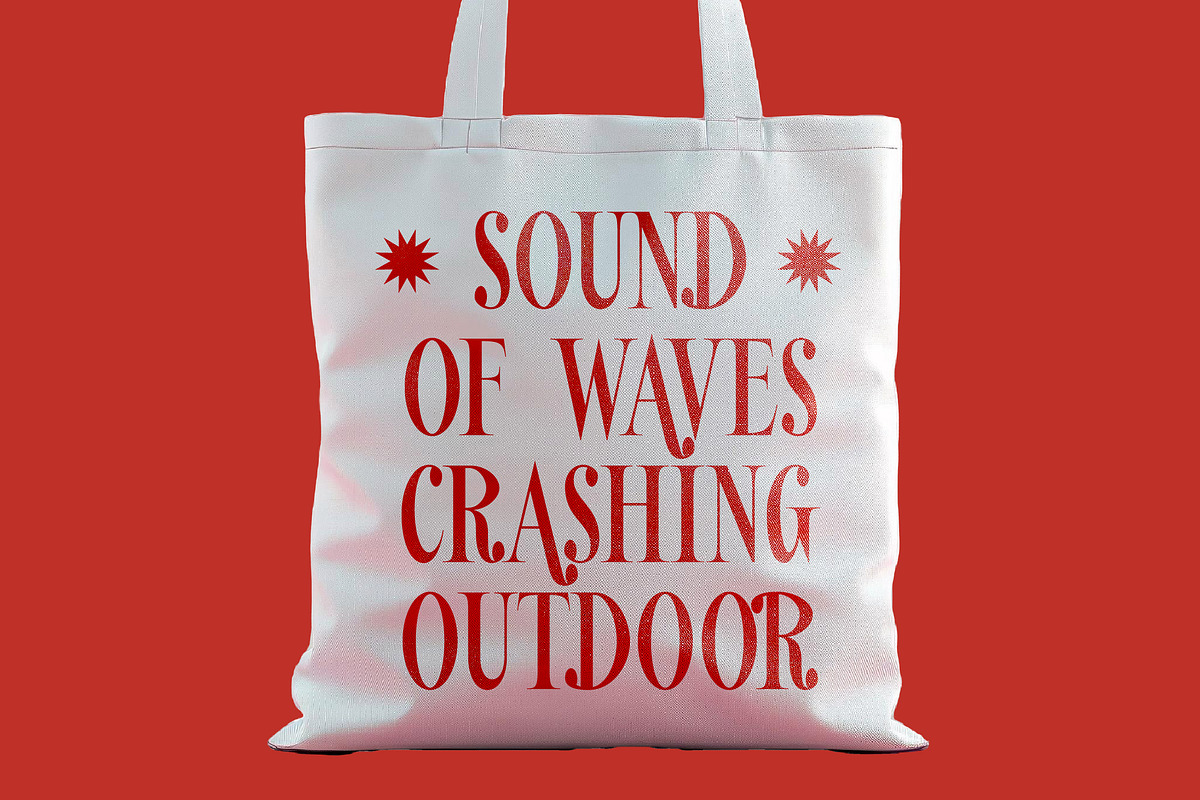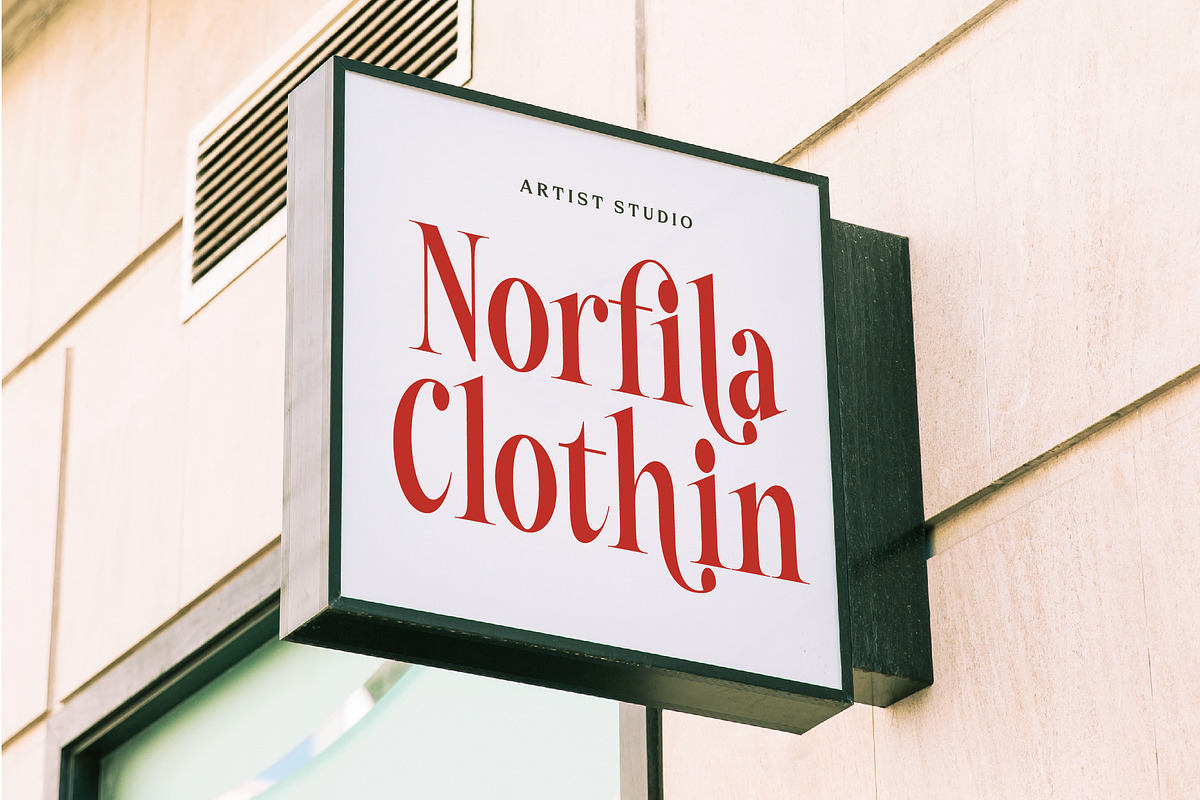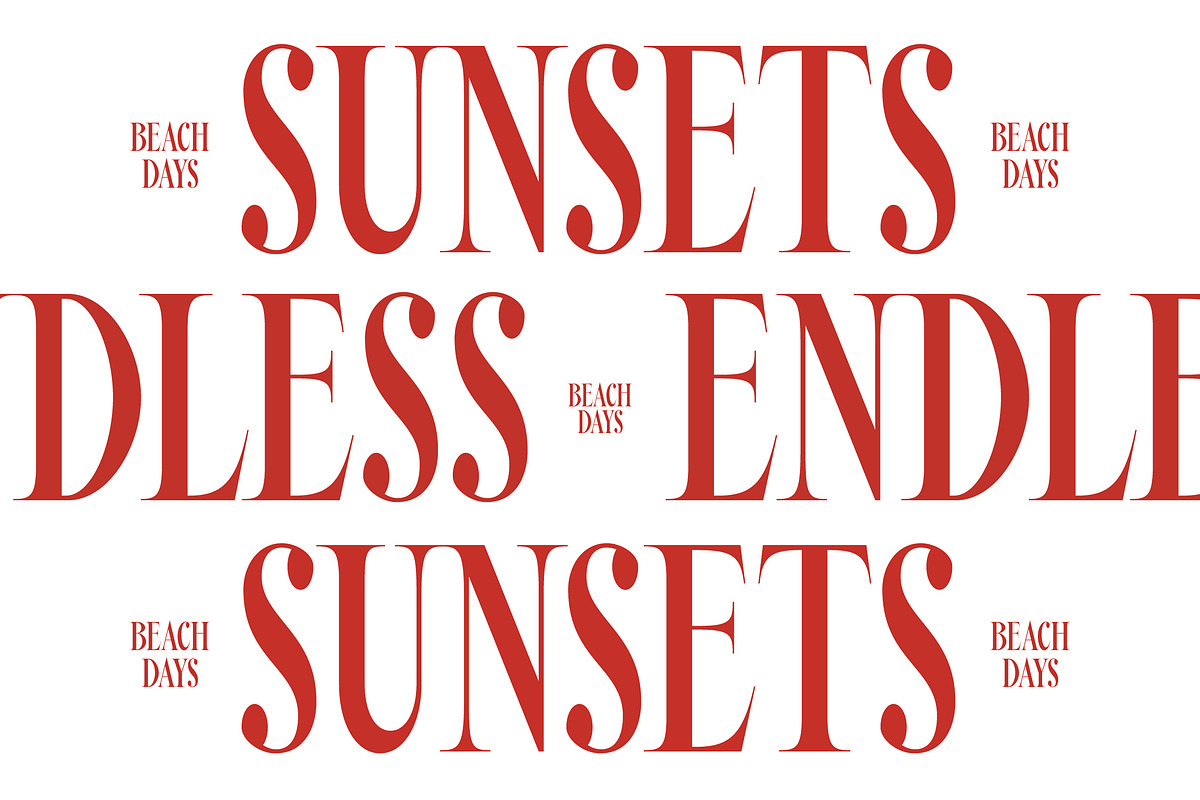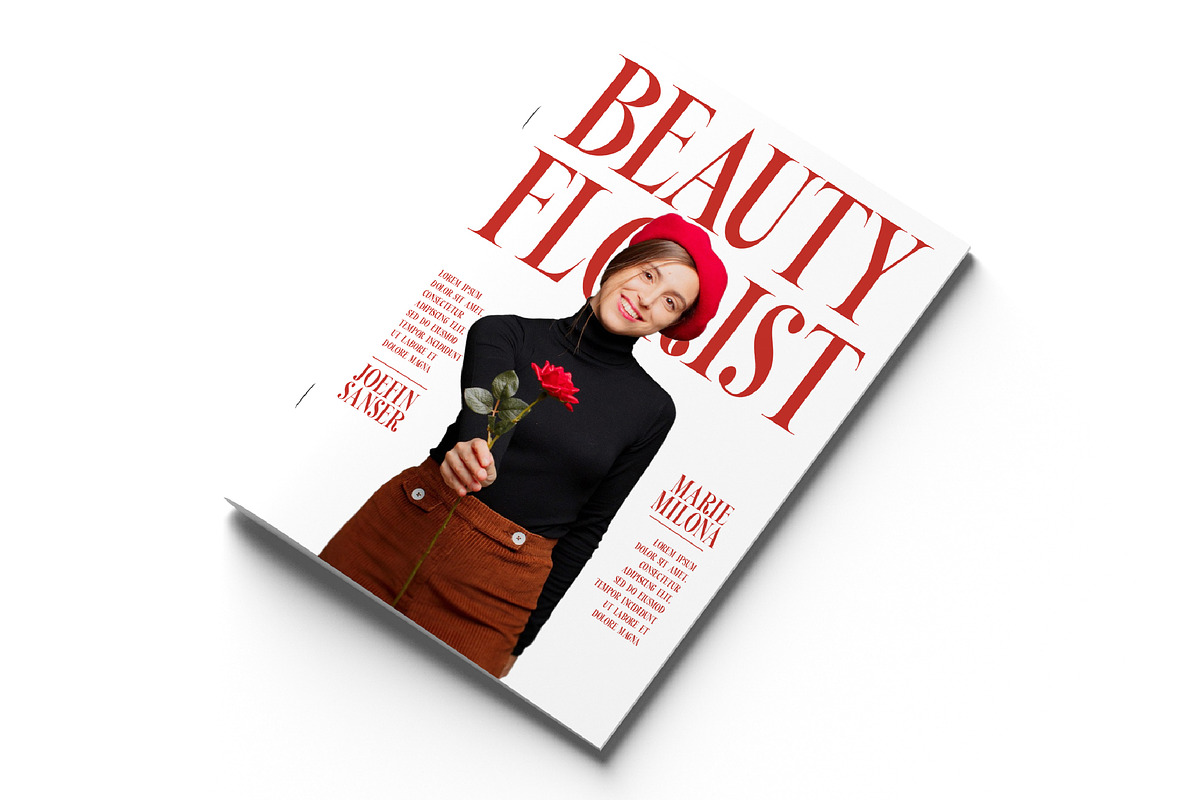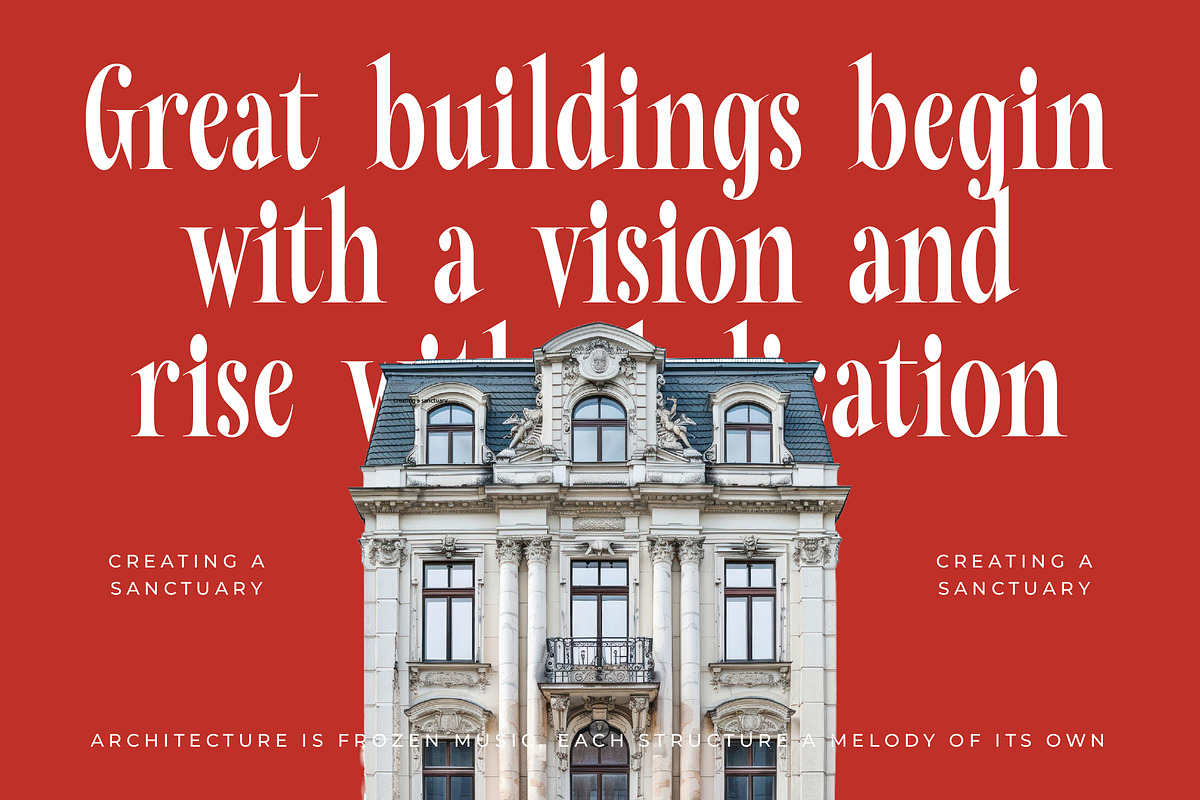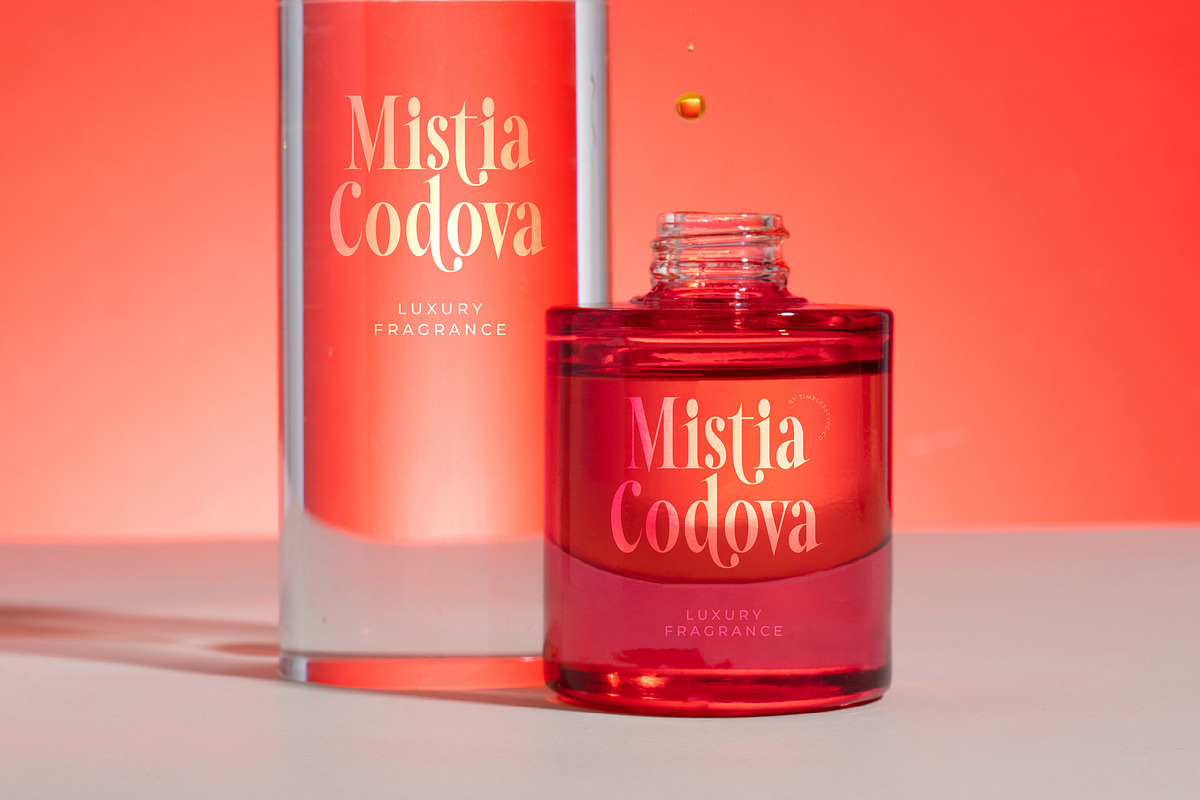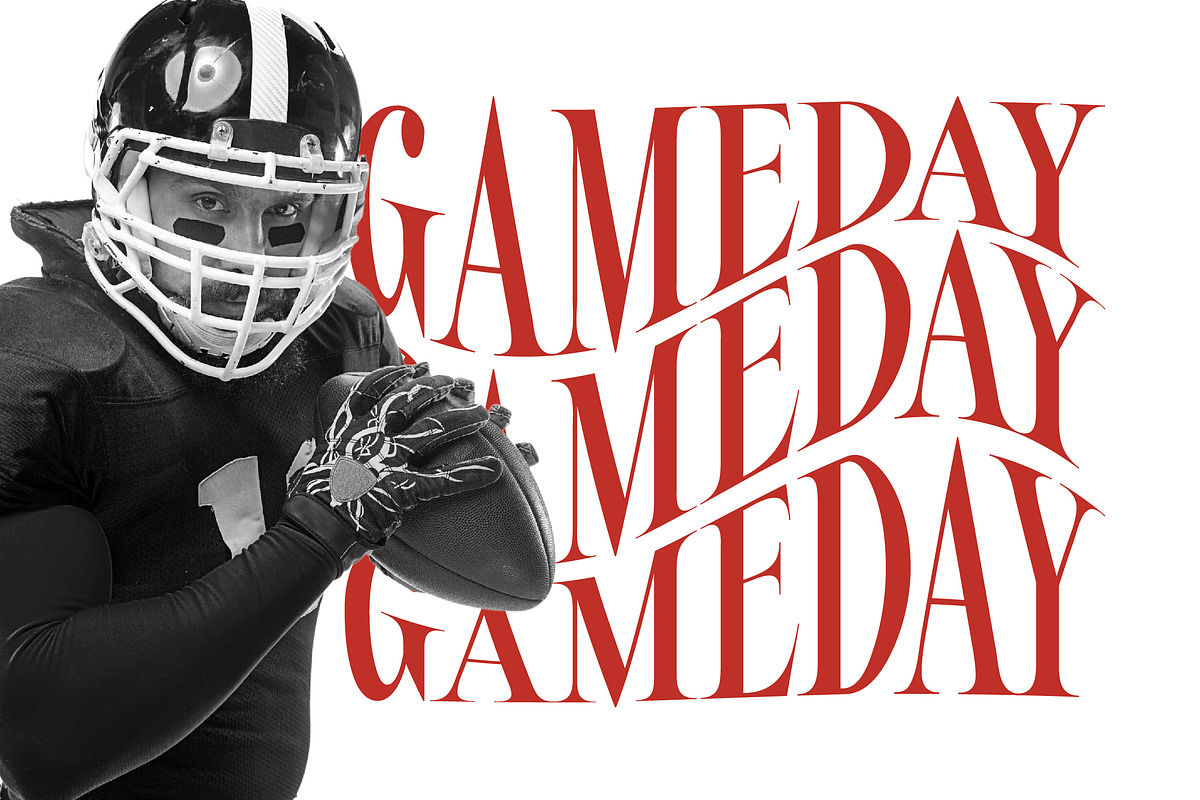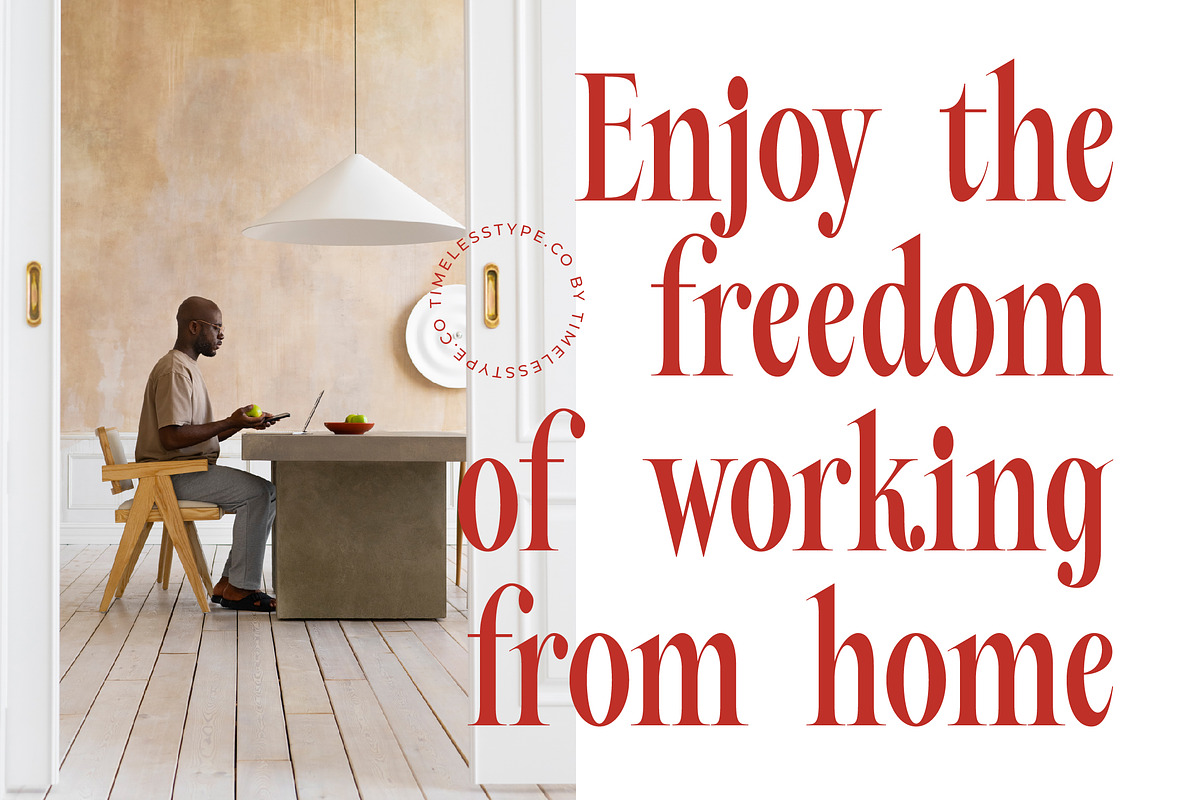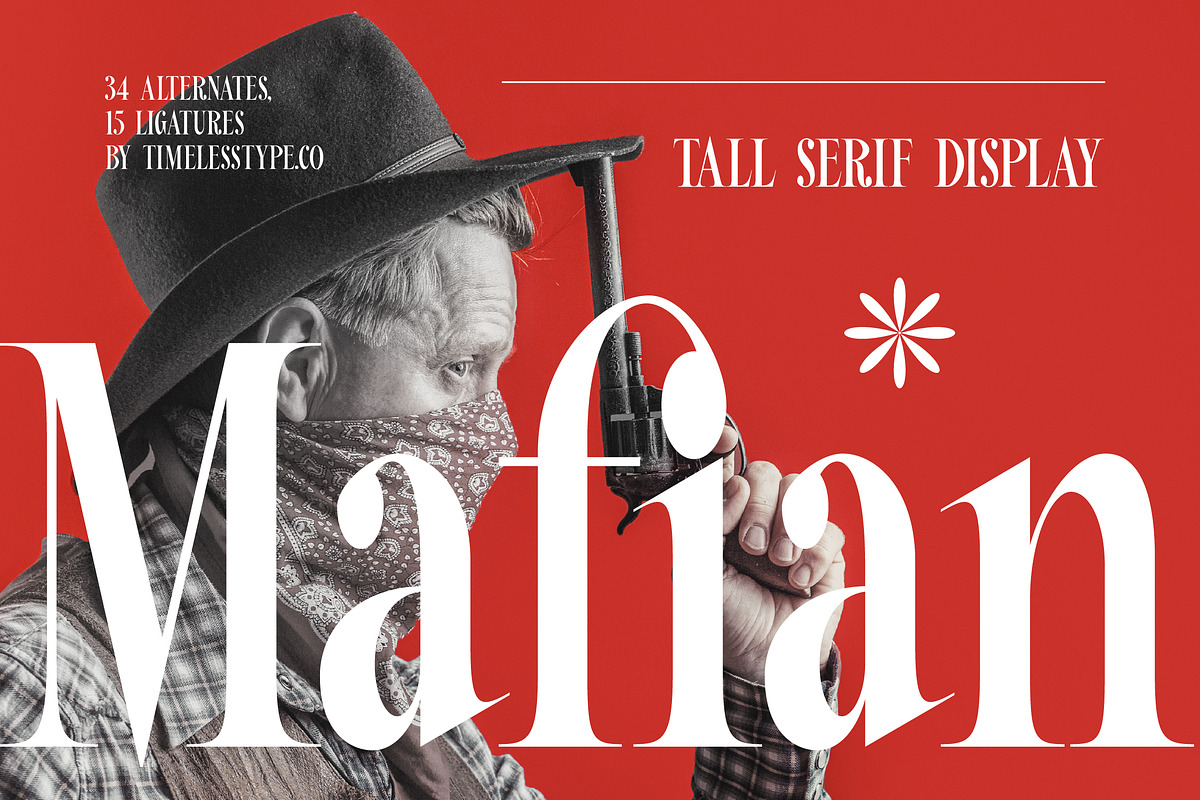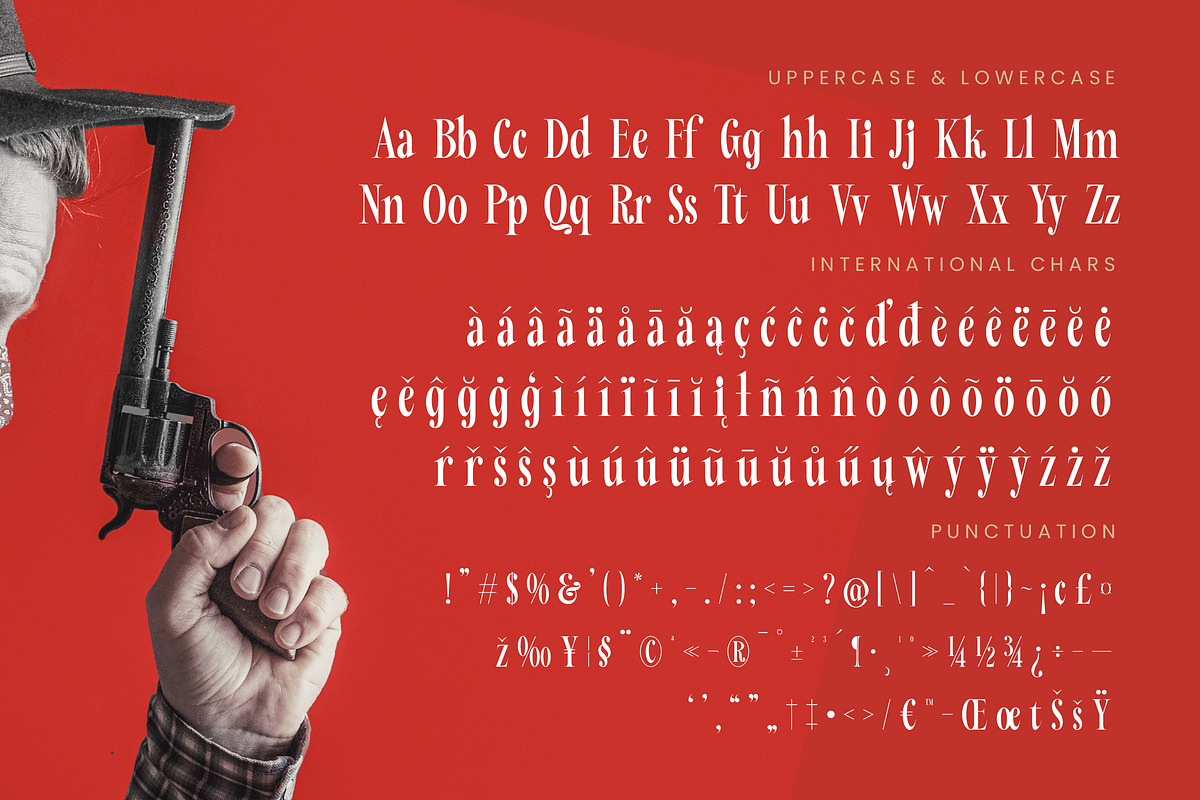
Mafian Tall Serif Display Font
Step into a world of sharp sophistication and timeless grit with Mafian, a typeface designed to command immediate attention. It bridges the gap between classic elegance and a modern, high-stakes aesthetic.
Inspired by the cinematic allure of vintage noir and the rugged elegance of high-plains westerns, this font captures a unique outlaw luxury vibe. The tall proportions and sharp serifs evoke the feeling of a prestige movie title sequence or a bespoke luxury label found in a hidden speakeasy.
This modern serif display offers an unparalleled luxury typography experience for designers seeking a high-contrast serif with real bite. Every character is crafted to provide a maximum branding impact, making it the perfect editorial font for those who aren't afraid to be bold.
Aligning perfectly with the current modern serif trend, this typeface fulfills the industry demand for editorial display fonts that feel both nostalgic and fresh. Designers are moving toward character-driven typography that tells a story, and this font delivers that narrative weight in every stroke.
Its versatility shines in high-end logo design and comprehensive branding projects where a distinct voice is required. Whether it is for sophisticated editorial layouts, premium packaging, a moody wedding suite, or a cutting-edge fashion campaign, this typeface provides the necessary gravitas.
Unlock creative potential with 15 unique ligatures and 34 character alternates alongside decorative swashes that add a custom flair to every word. The font provides robust multilingual support and a complete set of international characters for high-end professional projects.
- Ligature 15 Alternate 34